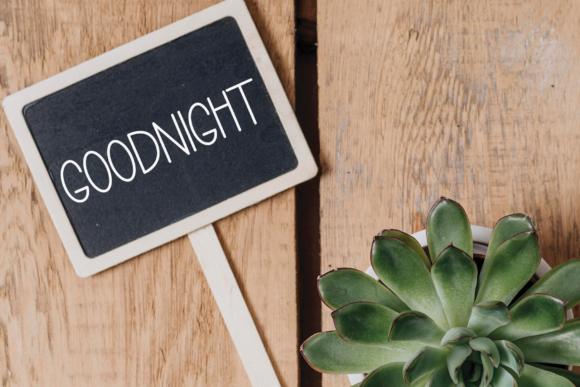
Introduction to Flower Blosom Font
Have you ever found yourself in a moment of creative bliss, surrounded by colorful papers, scattered with paintbrushes and markers, as you search for the perfect design element to bring your vision to life? This is exactly where the Flower Blosom Font comes in – a sweet and simple handwritten font that adds a delicate touch to any project.
As designers, we’re always on the lookout for unique and high-quality design resources that can elevate our creative projects. The Flower Blosom Font is an excellent addition to any design arsenal, offering a transparent background that makes it easy to integrate into your designs. Whether you’re working on a free download project or a commercial design, this font is sure to bring a touch of elegance and sophistication.
Key Features of Flower Blosom Font
- High-quality design resource perfect for creative projects, including invitations, greeting cards, and digital art.
- Unique and elegant font style with a transparent background, ideal for adding a touch of sophistication to any design.
- Comes in a single weight, making it easy to use in a variety of design contexts without worrying about font pairing.
Honest Review: Flower Blosom Font
As a designer, I’m always on the lookout for high-quality design resources to elevate my creative projects. Recently, I came across the Flower Blosom Font, and I’m excited to share my honest review with you.
- ✨ The design is whimsical and playful, perfect for projects that require a touch of elegance and sophistication.
However, I do have some limitations to mention:
- ⚠️ The font is a bit limited in terms of font styles and variations, which may not be ideal for projects that require a wide range of typography options.
Overall, I’m impressed with the Flower Blosom Font, and I would highly recommend it for personal or small-scale design projects. Its high quality and versatility make it an excellent addition to any design resource library.
High Quality and Transparent Background
The Flower Blosom Font features high-quality designs with transparent backgrounds, making it easy to use in a variety of creative projects. This font is perfect for designing invitations, flyers, and other marketing materials that require a delicate and elegant touch.
The Flower Blosom Font is ideal for a variety of creative projects, including:
- Floral-themed designs and graphics
- Artistic and creative projects